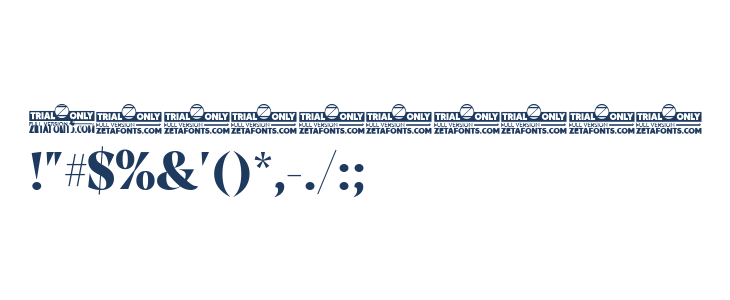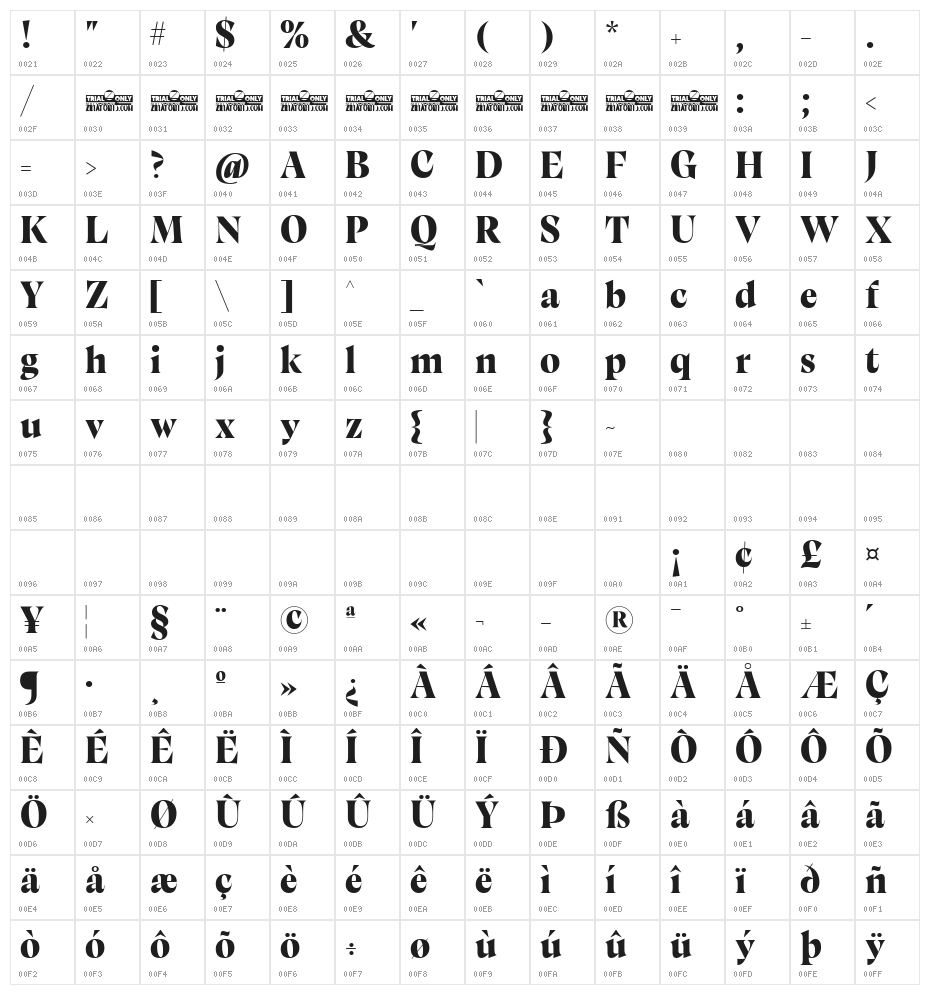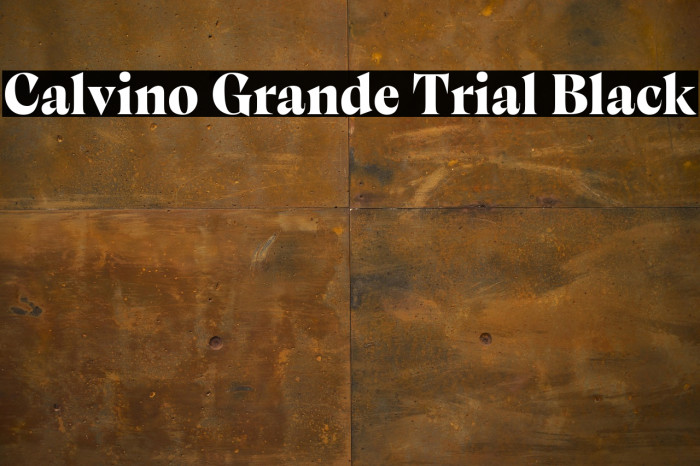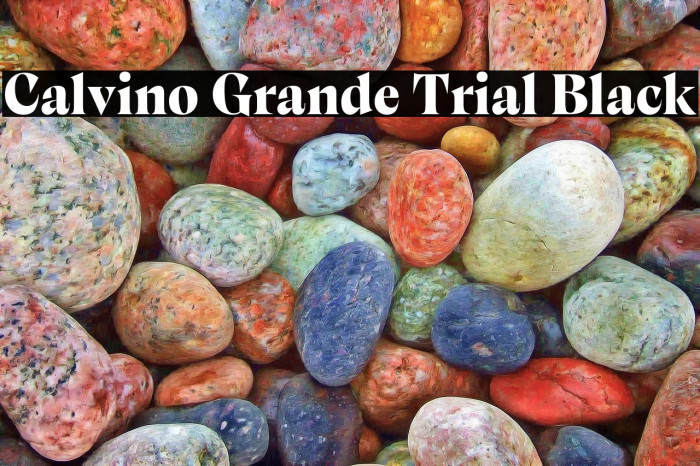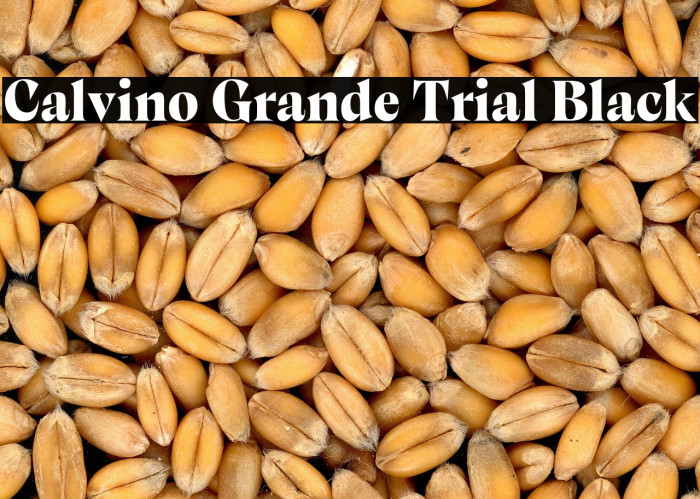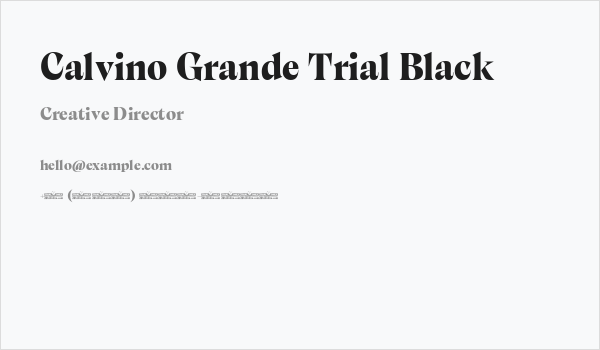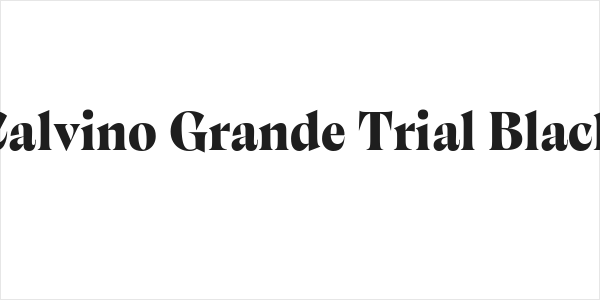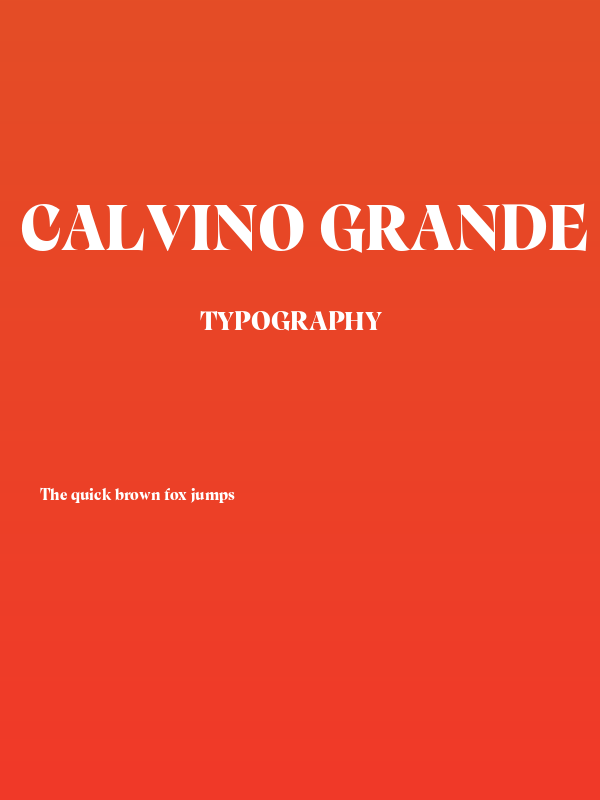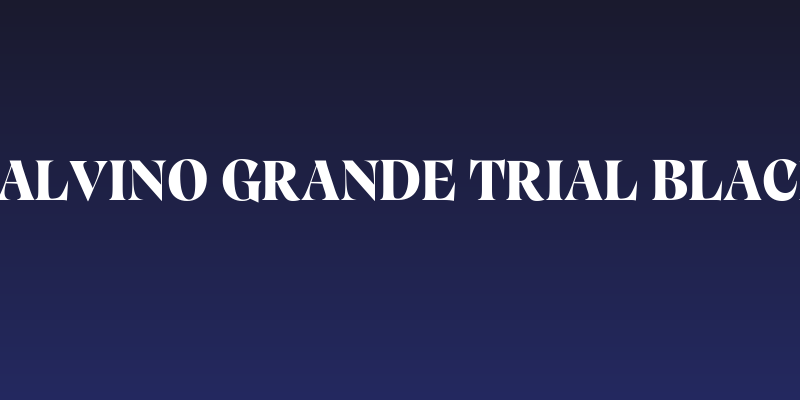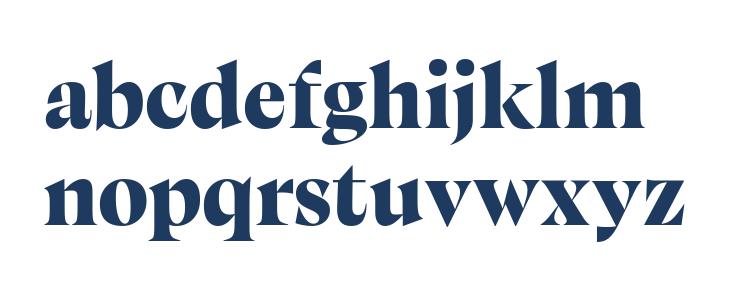
Calvino Grande Trial Black Font
Calvino Grande Trial Black Description
This font exhibits a bold and dramatic style with high contrast between thick and thin strokes, giving it a striking appearance. The serifs are pronounced and sharp, adding a touch of elegance and sophistication. The uppercase letters are particularly commanding, with a strong presence that makes them ideal for headlines or titles. The lowercase letters maintain the same boldness, ensuring consistency throughout the text. The special characters are designed with the same attention to detail, making them cohesive with the rest of the font. Overall, this font is perfect for projects that require a bold and impactful statement.
| Proposed Projects | Ideal for headlines, branding, posters, and any design that requires a strong visual impact. |